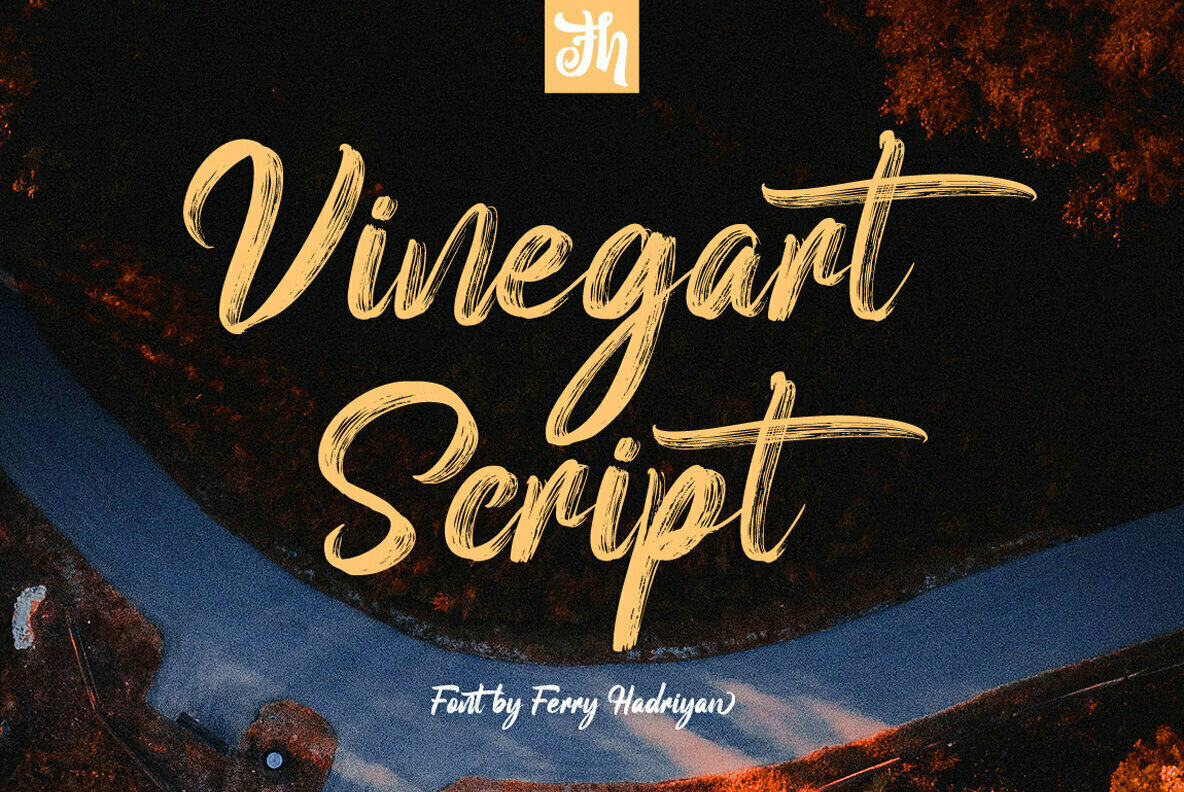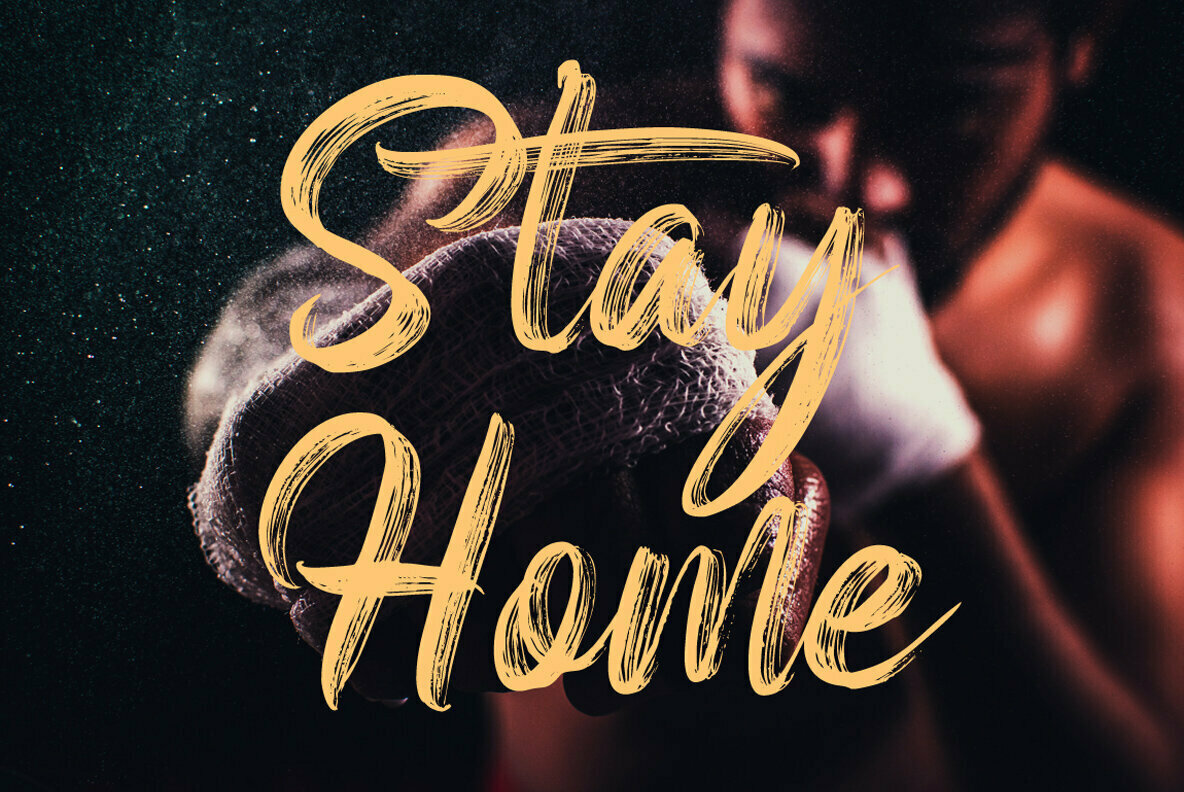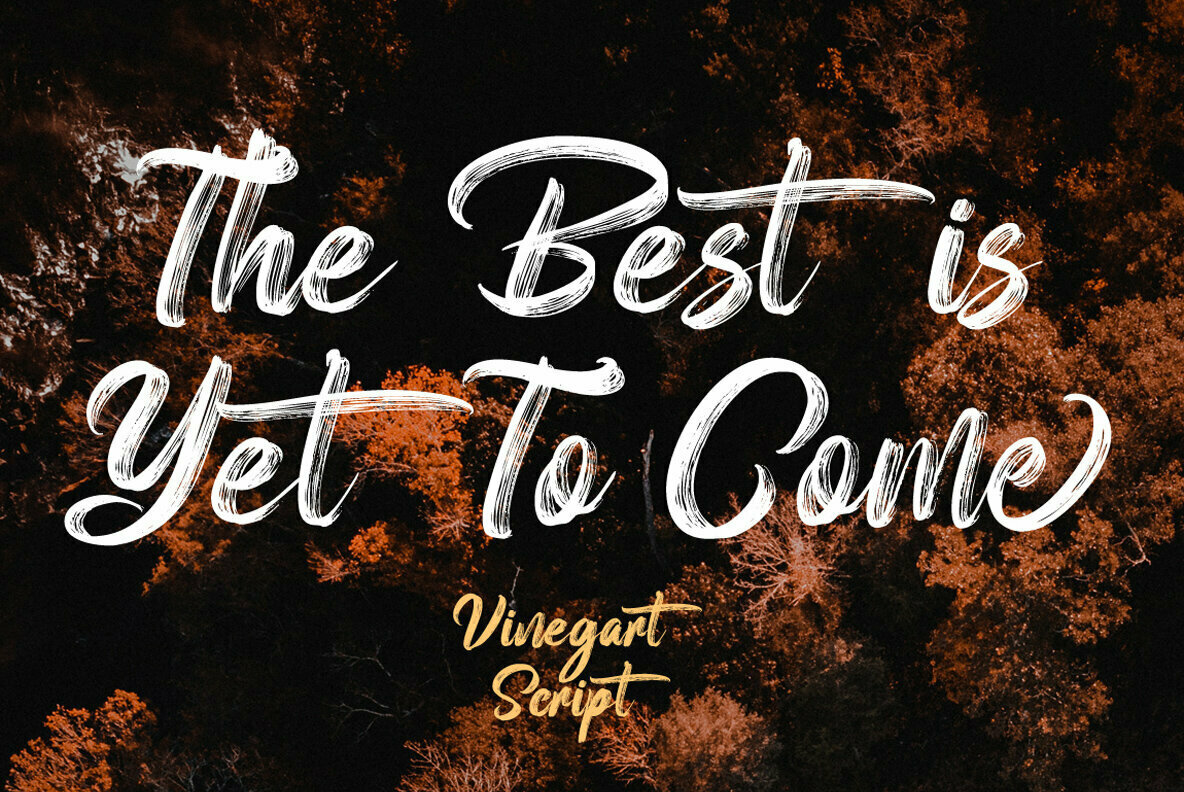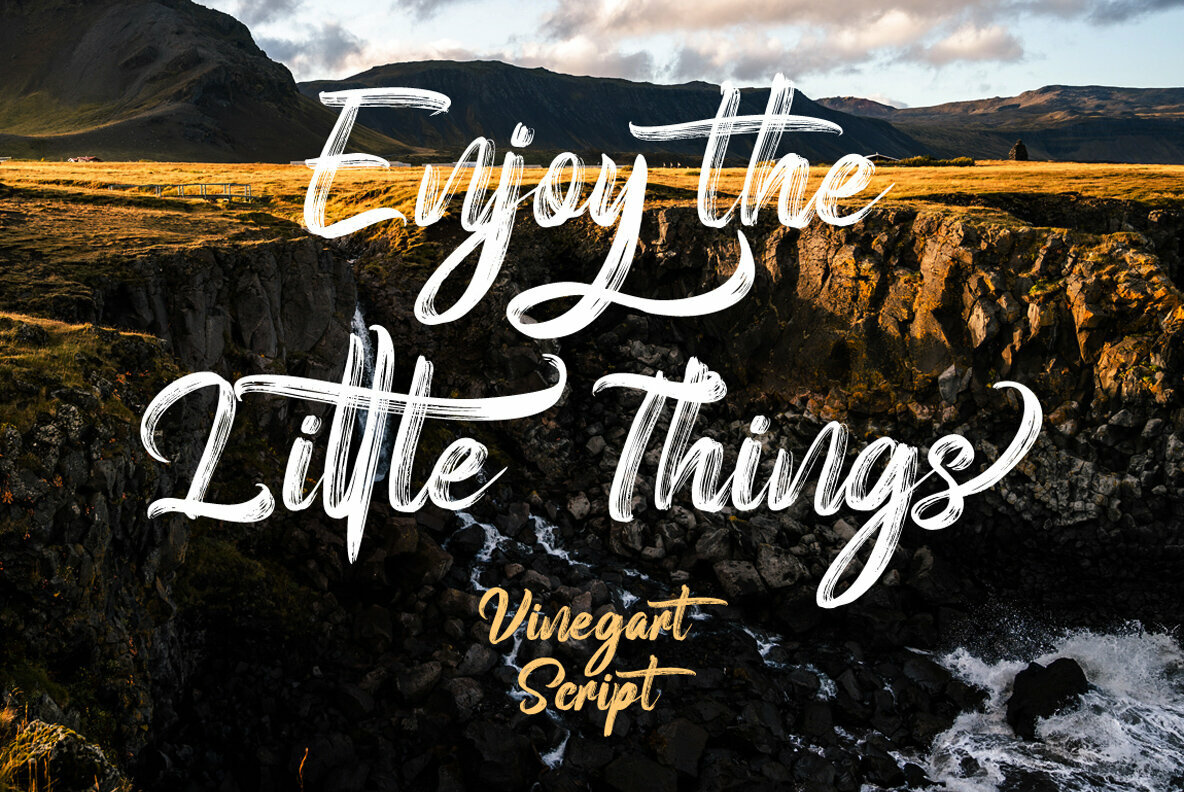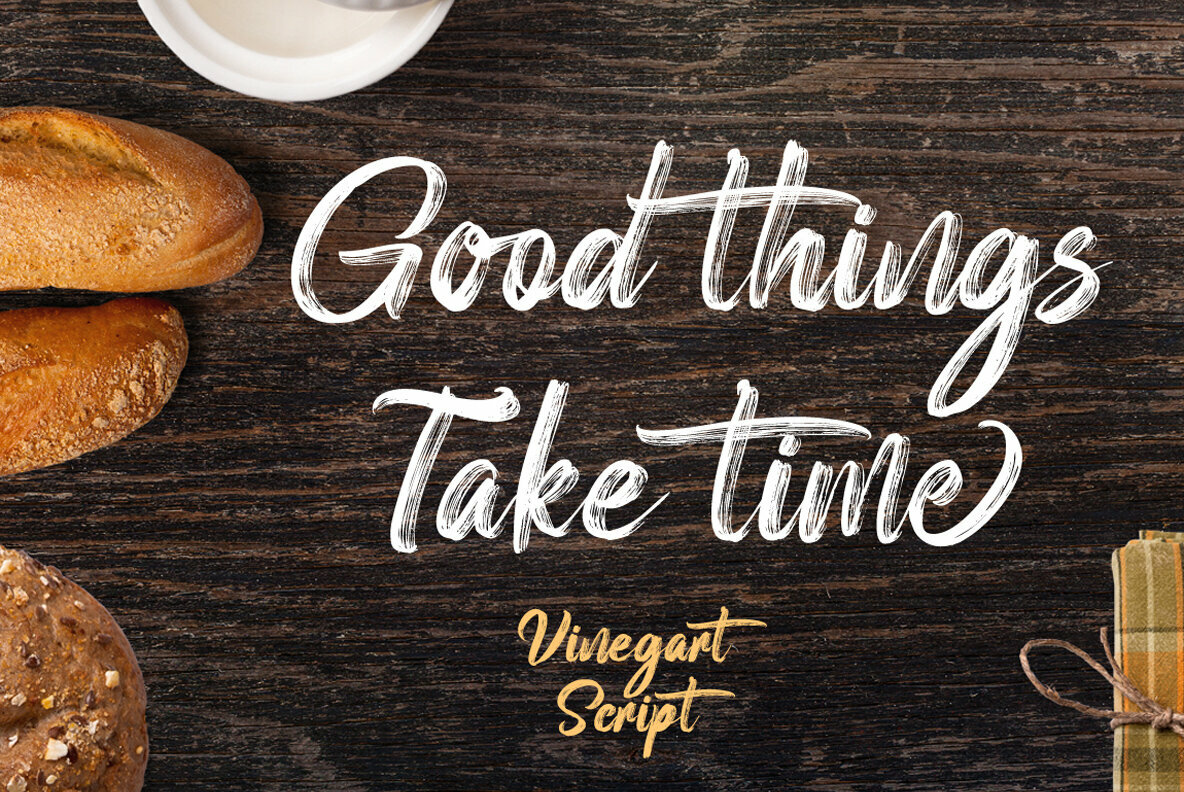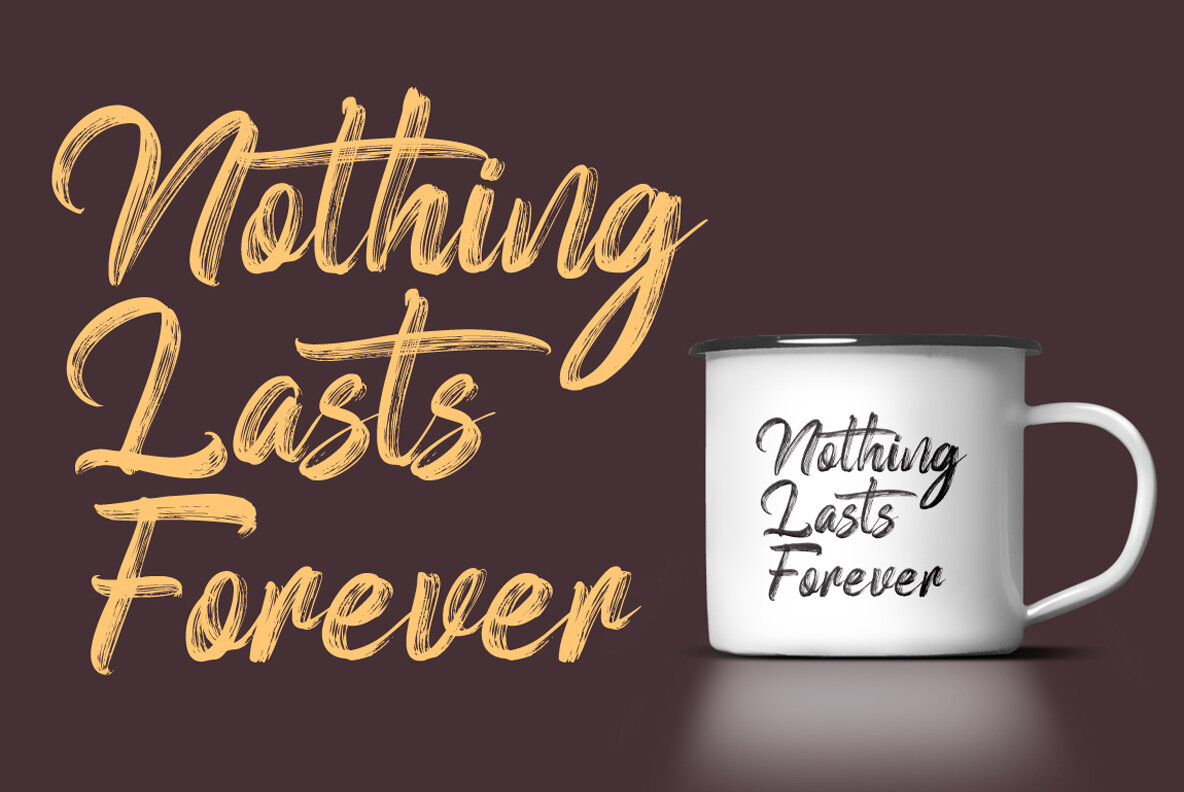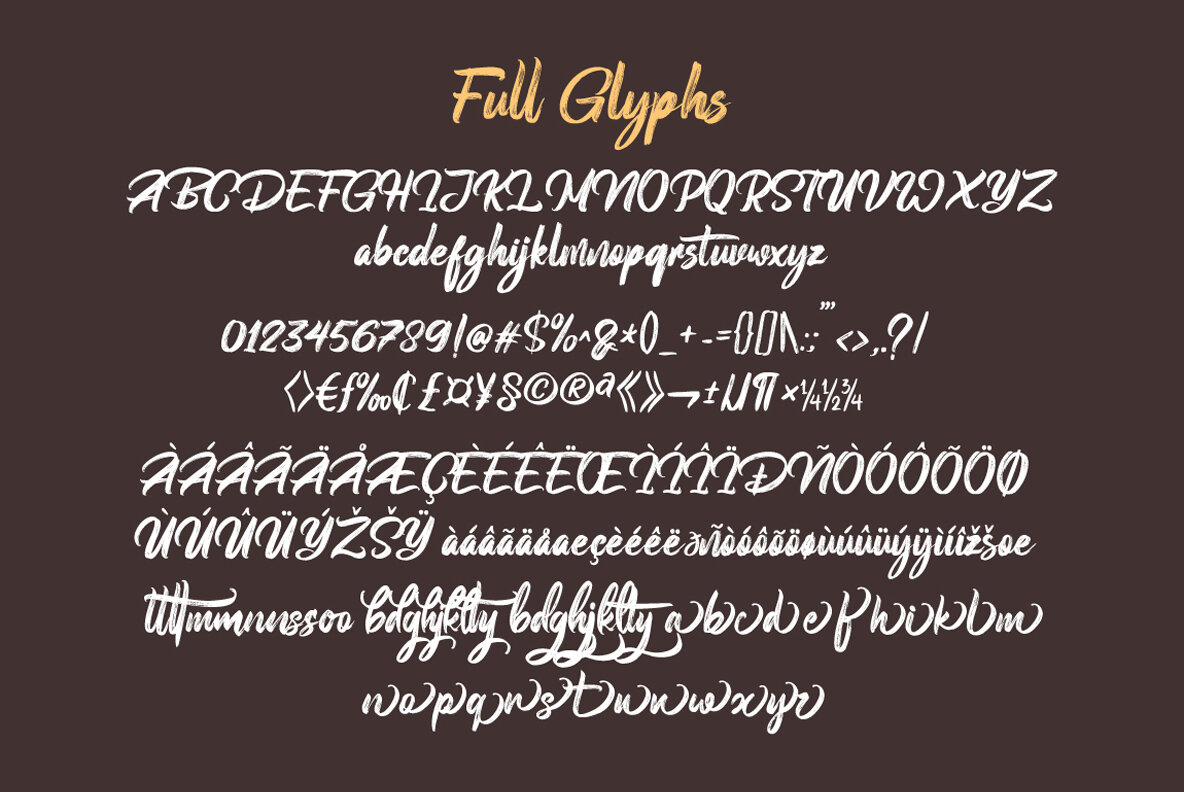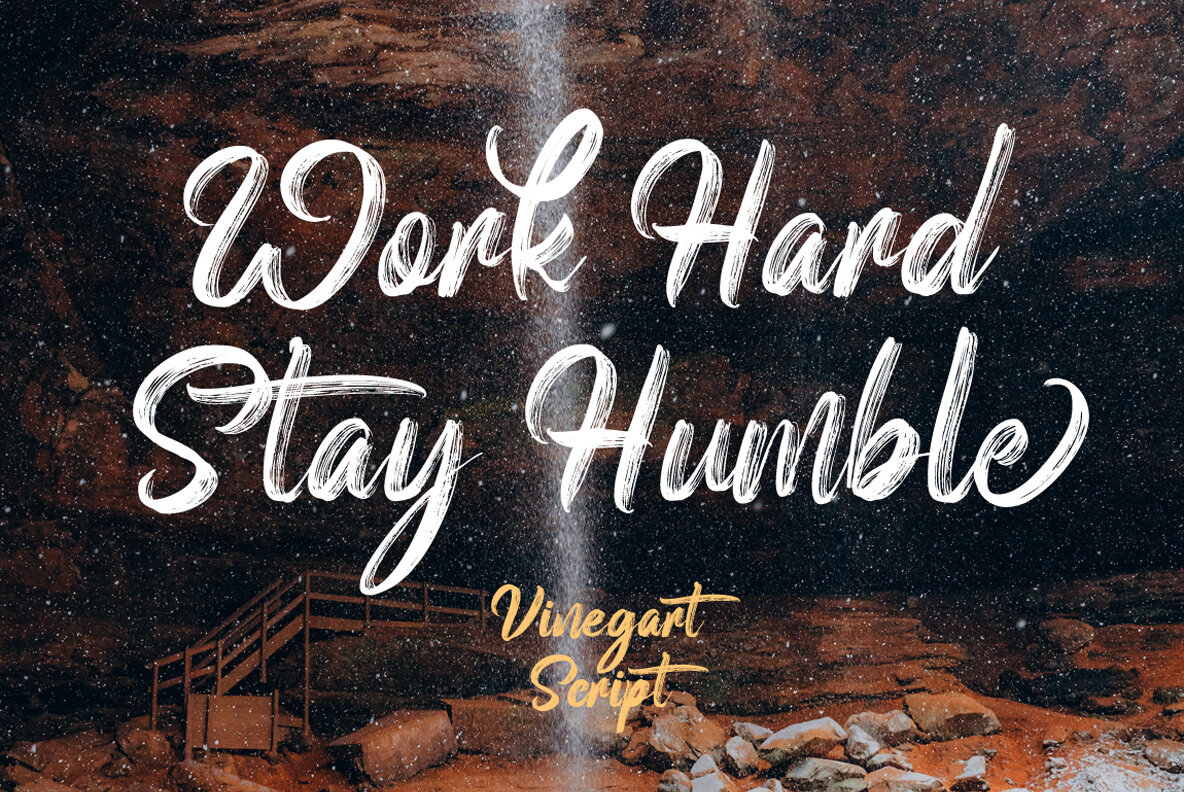
Vinegart Font
Vinegart
Vinegart captures the essence of artistic spontaneity with its dry brush script style. Evoking the fluidity and personality of hand lettering, this font harmonizes traditional craftsmanship with contemporary flair. It is tailored for versatile applications across design elements, weddings, events, apparel, logos, badges, and creative projects.Vinegart: Expressive Script with Handlettering Flair